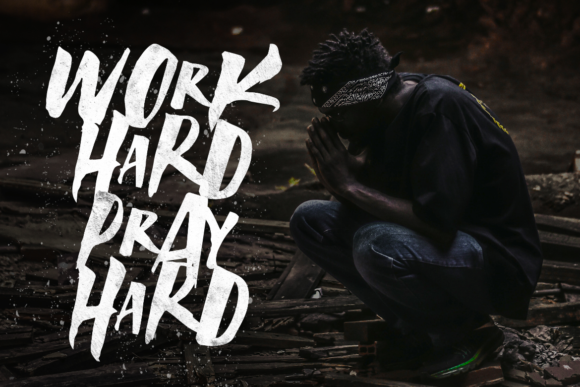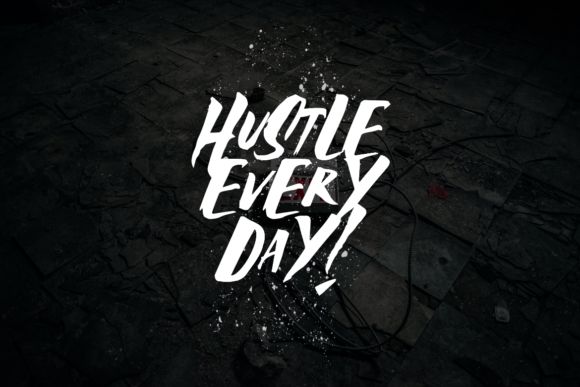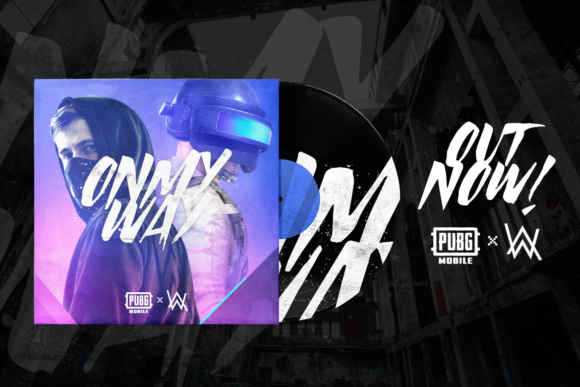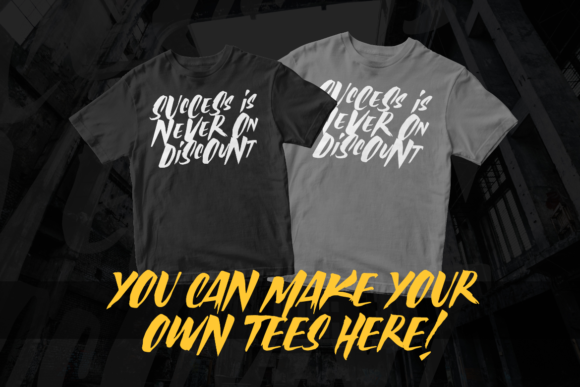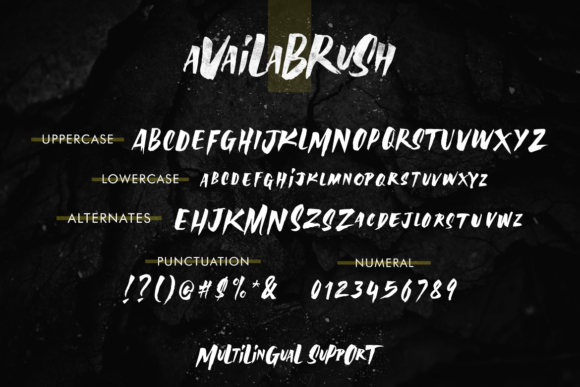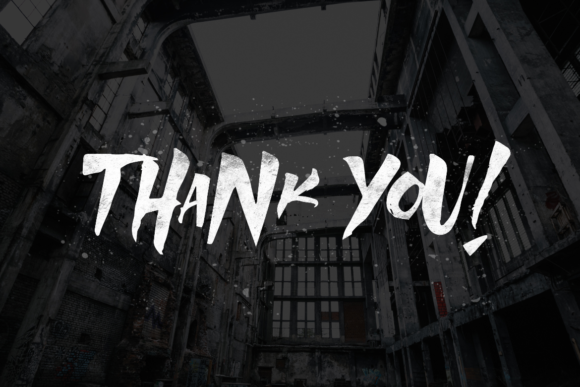
Discover the Perfect Brush Stroke for Your Next Design Project
Have you ever been in the middle of a design project, staring at a blank screen, and suddenly a burst of creativity hits you? The ideas start flowing, and you can’t wait to bring your vision to life. For designers, moments like these are what make our jobs so rewarding. But, sometimes, all it takes is the right font to take your design from meh to mesmerizing. That’s where the Availabrush Font comes in – a unique and fun display font that’s guaranteed to add a bold and urban touch to your next project.
With its distinctive brush stroke style, the Availabrush Font is perfect for designers looking to add some personality to their designs. Whether you’re working on a branding project, creating a social media campaign, or designing a website, this font is sure to make your work stand out. Its versatility and edgy feel make it a valuable addition to any designer’s toolkit.
Availabrush Font Key Features
- Font Family: Availabrush is a unique, hand-drawn sans-serif font family designed to convey a sense of approachability and friendliness.
- Character Set: The Availabrush font family includes a comprehensive set of characters, including uppercase and lowercase letters, numerals, punctuation marks, and special characters.
- Unique Characteristics: Availabrush features a distinctive, hand-drawn aesthetic with subtle imperfections and variations in line width, giving it a warm and human touch.
Availabrush Font Review
Overall, I’d say Availabrush Font is a decent addition to any designer’s toolkit. It has some nice features that make it stand out, but it also has some limitations that might make you think twice.
- Unique and modern aesthetic: Availabrush Font has a distinct look that’s perfect for modern brands and designs.
- Good for body text: It’s easy to read and has a clear structure that makes it perfect for body text.
- Supports multiple languages: Availabrush Font is a great option for designers who need to create content in multiple languages.
- Limited font weights: Availabrush Font only comes in a few font weights, which might limit its use in certain designs.
- No italic or oblique styles: This might be a problem for designers who need to create italics or obliques for certain words or phrases.
- Not ideal for headlines: While Availabrush Font looks great for body text, it’s not the best choice for headlines due to its limited font weights and lack of bold styles.
Overall, Availabrush Font is a solid choice for designers who need a modern, easy-to-read font. However, its limitations might make it less suitable for certain projects or designs.
Tips for Getting the Most Out of Availabrush Font
Availabrush Font is a modern and elegant font that works well for a variety of projects.
Some tips for getting the most out of this font include:
1. Use it for headings and titles to add a touch of sophistication to your design.
2. Pair it with other modern fonts to create a cohesive and stylish look.